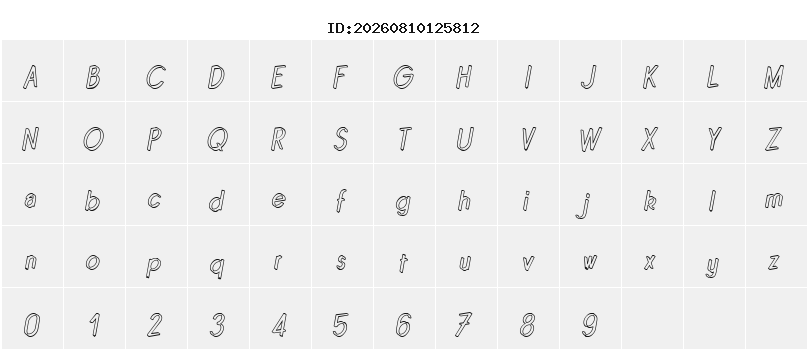
Quincaille Preview
• Font Name: Quincaille
• Font Style: Outline Italique
About Quincaille.ttf
Quincaille.ttf is a modern, elegant sans-serif font designed for ultimate readability and visual harmony. Perfect for branding, headlines, web design, and print materials.